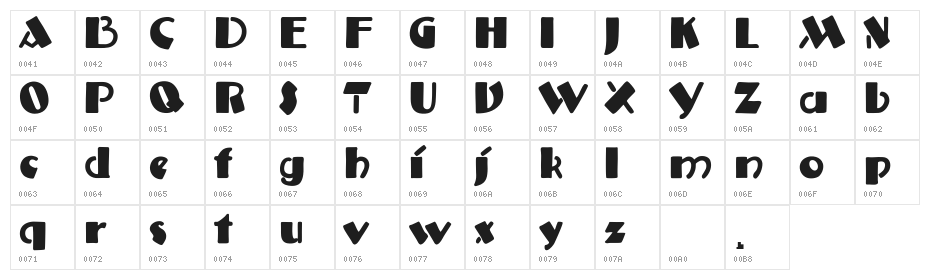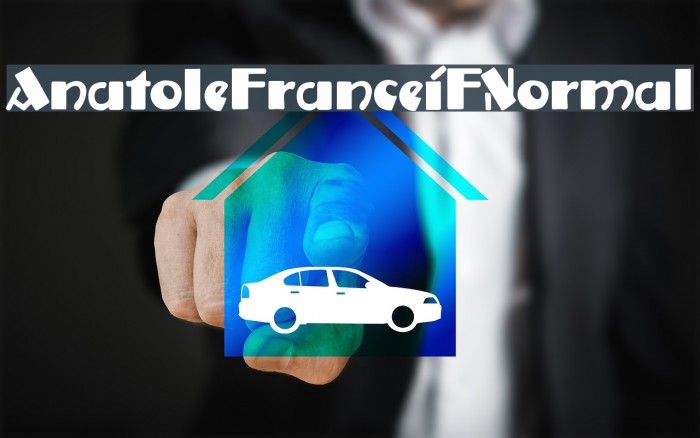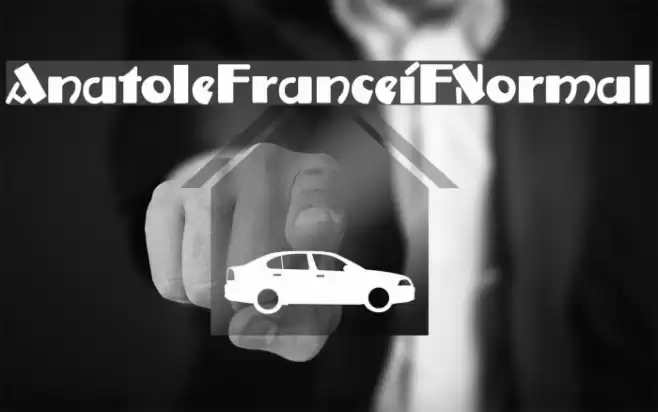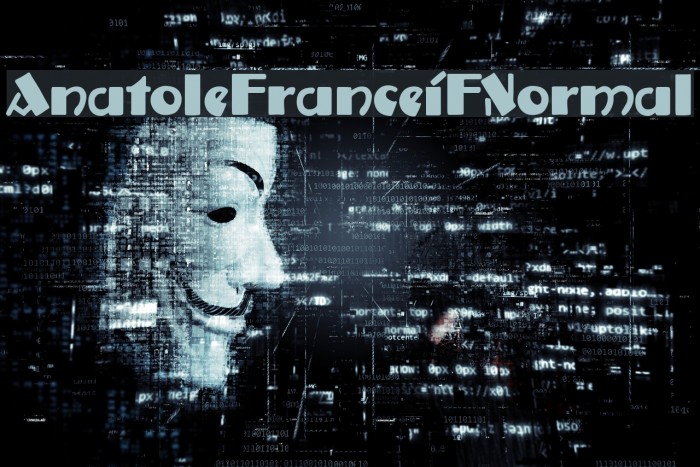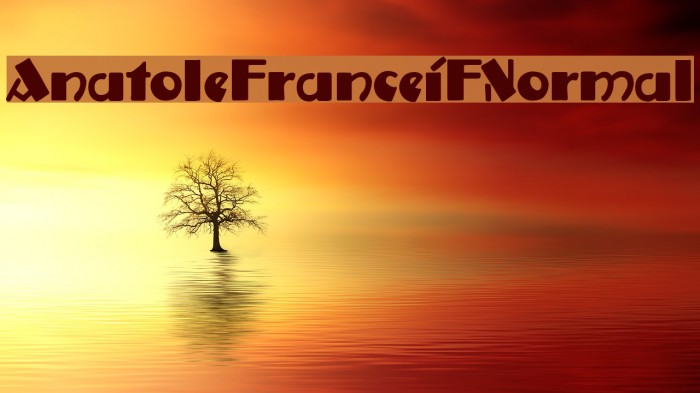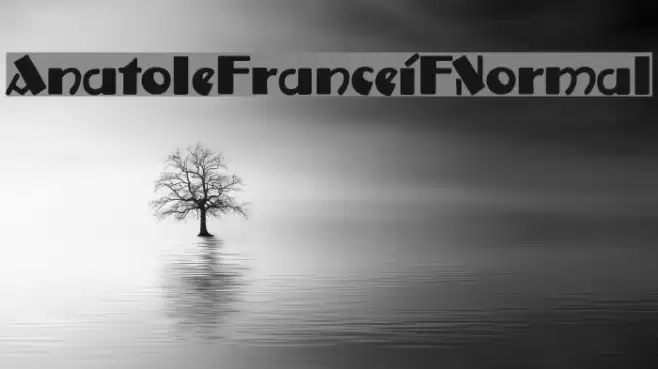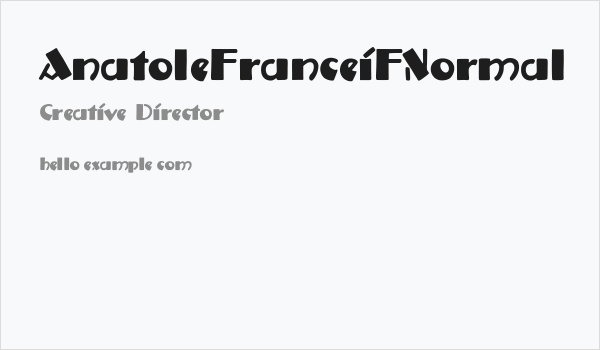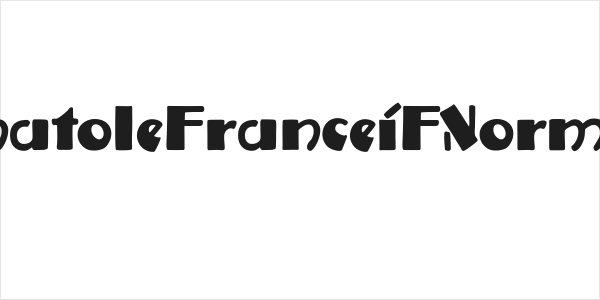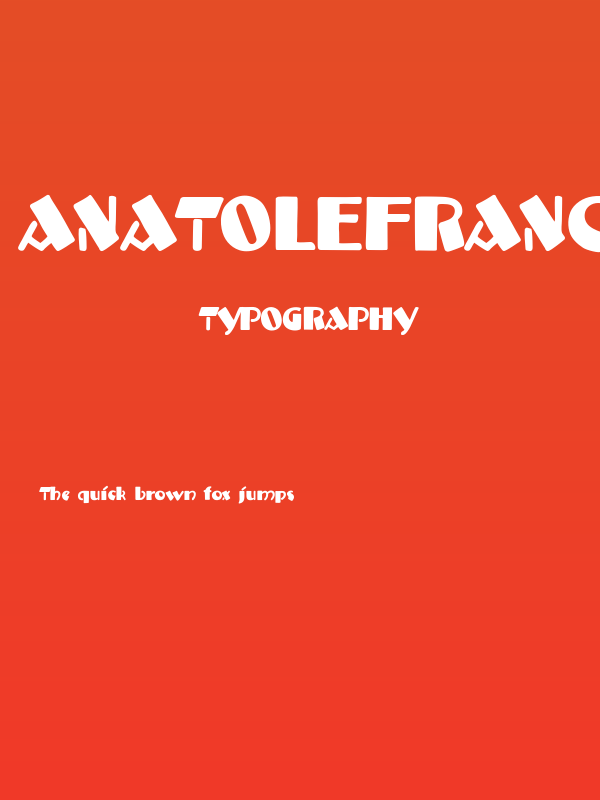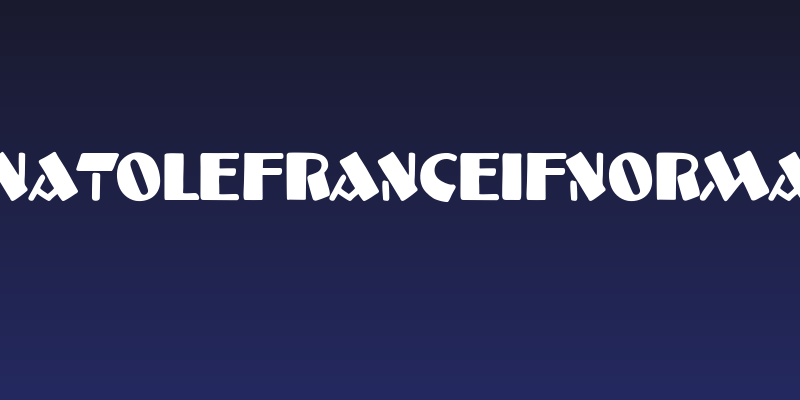
This font features a bold and striking design with a unique blend of geometric and organic shapes. The uppercase letters are characterized by their thick, solid strokes and angular forms, creating a sense of strength and stability. The lowercase letters maintain a similar weight but introduce more curves and fluidity, adding a dynamic contrast to the overall appearance. The font's playful yet structured style makes it suitable for creative and eye-catching designs. Its distinctive character shapes and bold presence make it ideal for projects that require a strong visual impact.
| Proposed Projects | Ideal for posters, branding, headlines, and any design needing a bold statement. |